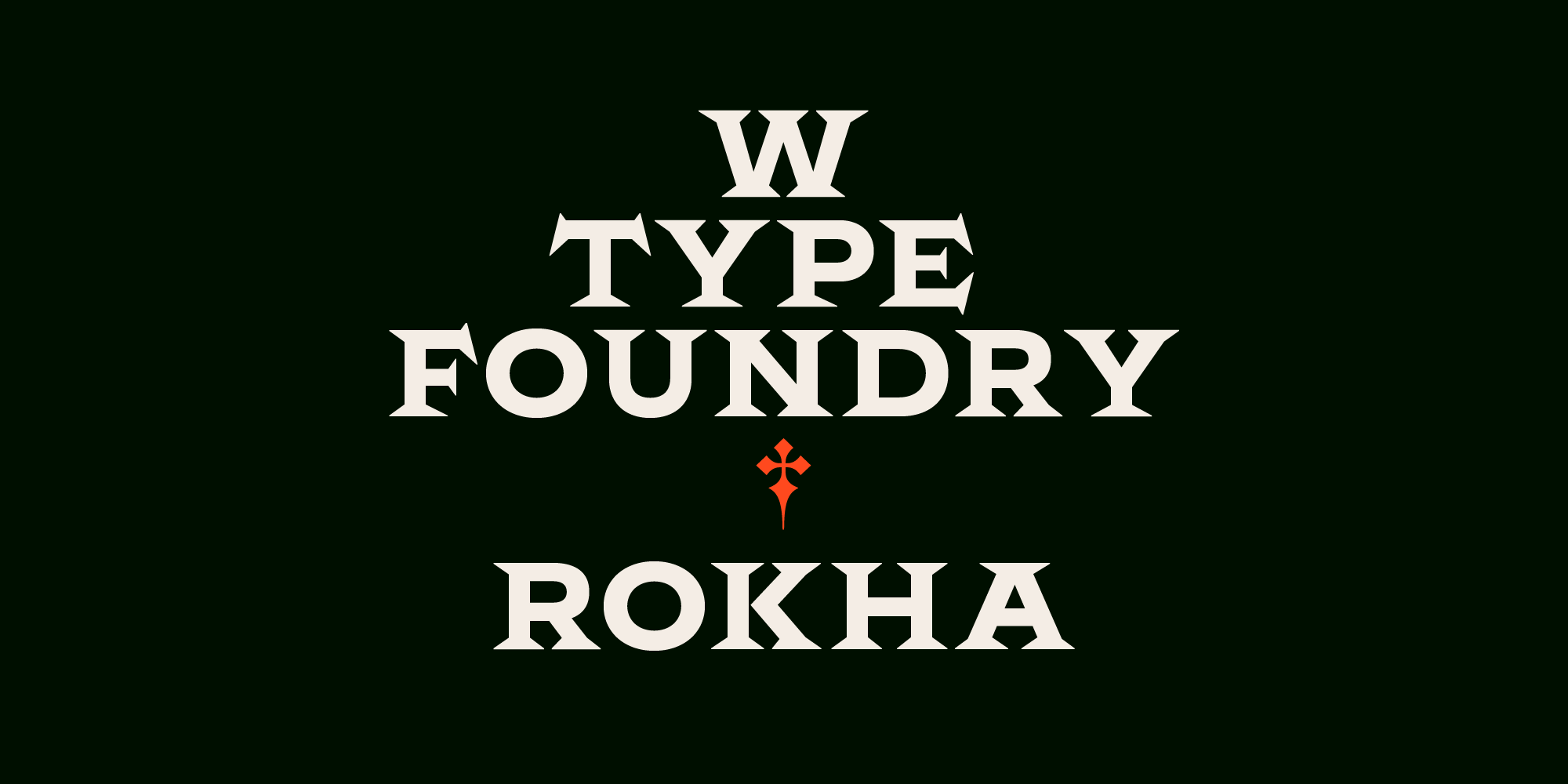
The Rokha Font excels in various design applications including rugged outdoor adventure branding, rock climbing gym marketing, mountaineering equipment communications, geological survey materials, stone quarry company identities, rock festival promotions, mineral exploration signage, climbing gear packaging, outdoor education materials, and distinguished geological projects that demand rock-solid authenticity and mountaineering sophistication.
What makes the Rokha Font exciting is its sturdy embodiment of geological strength and mountaineering adventure through letterforms that capture the essence of solid rock formations and the rugged determination of outdoor enthusiasts. This typeface demonstrates exceptional durability through carefully crafted characters that suggest the weathered texture of mountain stone, the reliable strength of climbing anchors, and the enduring stability that makes rock formations so geologically fascinating and adventure sports so physically challenging. The font's rocky personality makes it perfect for outdoor companies and geological organizations seeking to communicate rugged authenticity, mountaineering expertise, and the kind of rock-solid reliability that creates memorable outdoor experiences through typography that literally stands firm with geological strength.
The Rokha Font family typically includes rugged weight variations that enhance the geological aesthetic, featuring mountainous styling options and extended character sets optimized for outdoor communications and geological applications. These family options often include rock-inspired alternates, climbing symbols, and geological decorative elements that provide designers with comprehensive tools for creating authentically rugged typography that celebrates outdoor adventure while maintaining contemporary design appeal and mountaineering credibility.
Outdoor professionals and geological organizations consistently select Rokha Font Free Download for projects requiring typography that communicates rugged authenticity and geological sophistication. This typeface delivers exceptional performance in outdoor marketing, adventure branding, and geological communications where establishing strength and creating reliable outdoor atmosphere is essential for adventure enthusiast engagement. The font's rocky character makes it particularly effective for climbing and exploration applications. Download Rokha Font Free Download today to access this geologically solid typeface that transforms outdoor communications with its rocky elegance and mountaineering sophistication, creating compelling adventure experiences that honor the magnificent strength of geological formations while celebrating the rugged determination that defines authentic outdoor culture and mountaineering excellence.